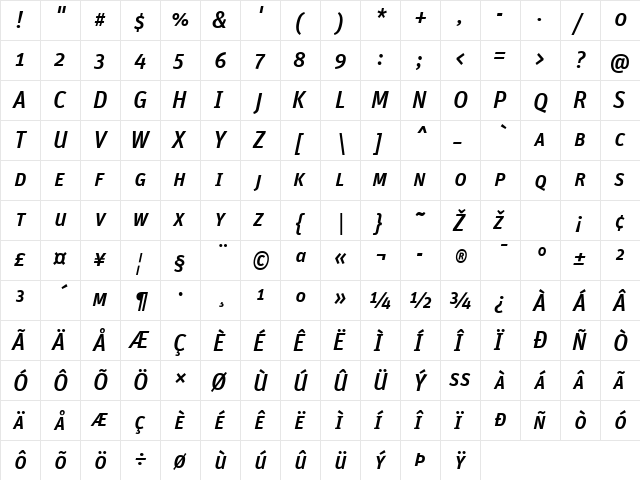
Unit-MediumSCItalic Regular Font Preview
Unit-MediumSCItalic Regular
Unit-MediumSCItalic Regular Font Details
| Foundry | Erik Spiekermann, Christian Schwartz; published by FontShop International for the FontFont Library |
| Designer | Erik Spiekermann, Christian Schwartz |
Design Context for Unit-MediumSCItalic Typeface
Unit-MediumSCItalic takes a measured approach to typography — its balanced proportions and neutral character make it a reliable workhorse for both digital and print work. The dynamic lean of this cut emphasises speed and emphasis in any layout.